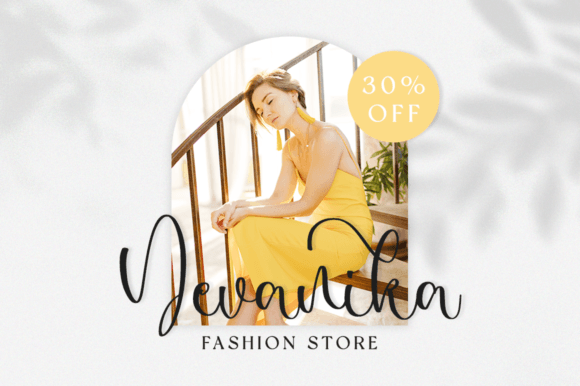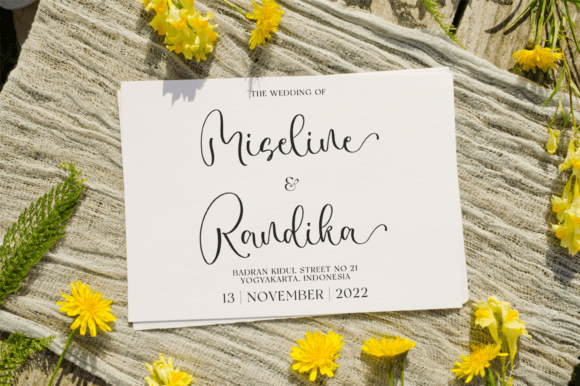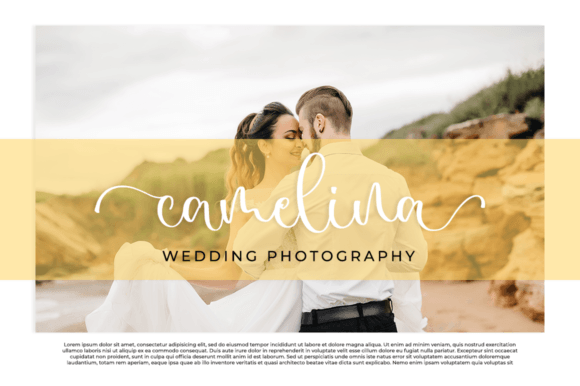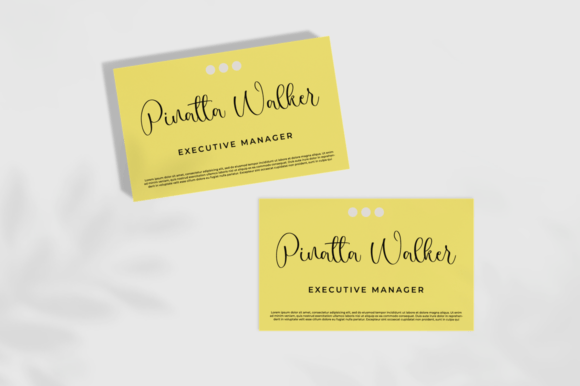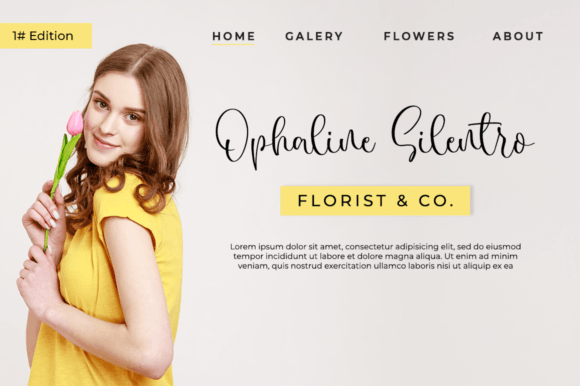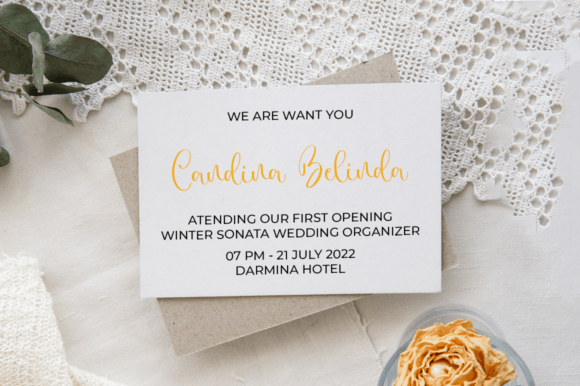
Introducing Fanelissa Font: Elevate Your Designs with Elegance and Sophistication
In the world of typography, a font can make or break a design project. If you’re a designer, craftsperson, or DIY enthusiast looking for that special something to add a touch of luxury and sophistication, look no further than the Fanelissa Font. This beautiful, delicate handwritten font is designed to leave a stunning impact on any project, setting it apart from the ordinary and elevating it to new heights of elegance.
The Unique Charm of Fanelissa Font
Fanelissa Font boasts a unique feel that is both captivating and charming. Its handwritten nature gives it a personal and intimate touch, making it perfect for a wide range of design projects, from wedding invitations and branding materials to packaging and digital content. The font’s delicate strokes and intricate details are meticulously crafted to provide a luxurious aesthetic that exudes refinement and poise.
PUA Encoding for Easy Access to Glyphs and Ligatures
One of the standout features of Fanelissa Font is its PUA (Private Use Area) encoding. This means that users can easily access all the amazing glyphs and ligatures included in the font, allowing for greater creativity and flexibility in design. With PUA encoding, you can effortlessly incorporate the font’s special characters into your project, creating a truly unique and customized look that reflects your personal style or brand identity.
Applications of Fanelissa Font
The versatility of Fanelissa Font makes it suitable for a myriad of applications. Here are a few ideas to get you started:
- Wedding and Event Planning: Create stunning wedding invitations, save-the-date cards, and event banners that set the tone for an unforgettable celebration.
- Branding and Packaging: Elevate your brand’s visual identity with elegant logos, product labels, and packaging designs that convey luxury and sophistication.
- Digital Content: Enhance your website, blog, or social media graphics with the Fanelissa Font, adding a touch of refinement to your online presence.
- Crafting and DIY Projects: Use Fanelissa Font to create beautiful handmade cards, scrapbook pages, and other craft projects that showcase your creativity.
Why Choose Fanelissa Font?
With so many fonts available, why choose Fanelissa Font for your design projects? Here are a few compelling reasons:
- Unique and Exclusive: Fanelissa Font offers a distinctive look that will set your designs apart from the crowd.
- Ease of Use: PUA encoding makes it simple to access and use the font’s extensive range of glyphs and ligatures.
- High-Quality Design: Crafted with attention to detail, Fanelissa Font is designed to deliver high-quality results in any application.
- Luxury Appeal: Add a touch of elegance and sophistication to any design project with this luxurious font.
In conclusion, Fanelissa Font is a beautiful and delicate handwritten font that can add a luxury spark to any design project. Its unique feel, stunning impact, and ease of use make it an excellent choice for designers, craftspersons, and DIY enthusiasts looking to elevate their designs. With its PUA encoding and extensive range of glyphs and ligatures, Fanelissa Font offers endless possibilities for creative expression. Whether you’re working on a wedding invitation, branding materials, or a DIY project, Fanelissa Font is sure to impress.